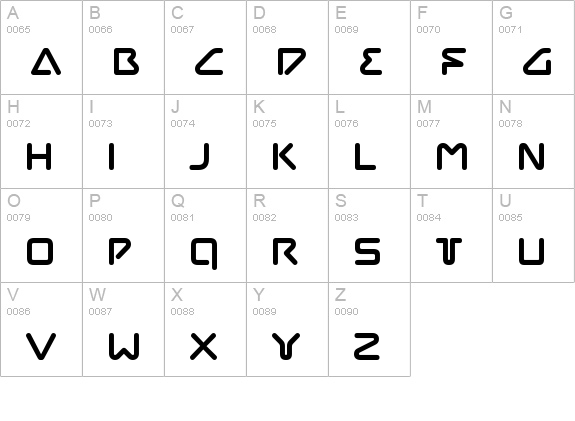
Chilopod-Regular is the standard, neutral variant in the Chilopod typeface family \xE2\x80\x94 well suited to general body text, paragraphs, and standard typographic work.
Chilopod-Regular font is a versatile and modern typeface that exudes elegance and sophistication. Its sleek and clean design makes it perfect for a wide range of projects, from branding to editorial design. The classic yet contemporary look of Chilopod-Regular font is sure to make your text stand out and leave a lasting impression. What's even better is that Chilopod-Regular font is available for free download at FontsMarket.com. This means you can enhance your designs with this stylish font without breaking the bank. Whether you're a designer looking to add a touch of class to your projects or a business owner wanting to elevate your brand, Chilopod-Regular font is the perfect choice. Download it today and start creating stunning visuals that will captivate your audience.